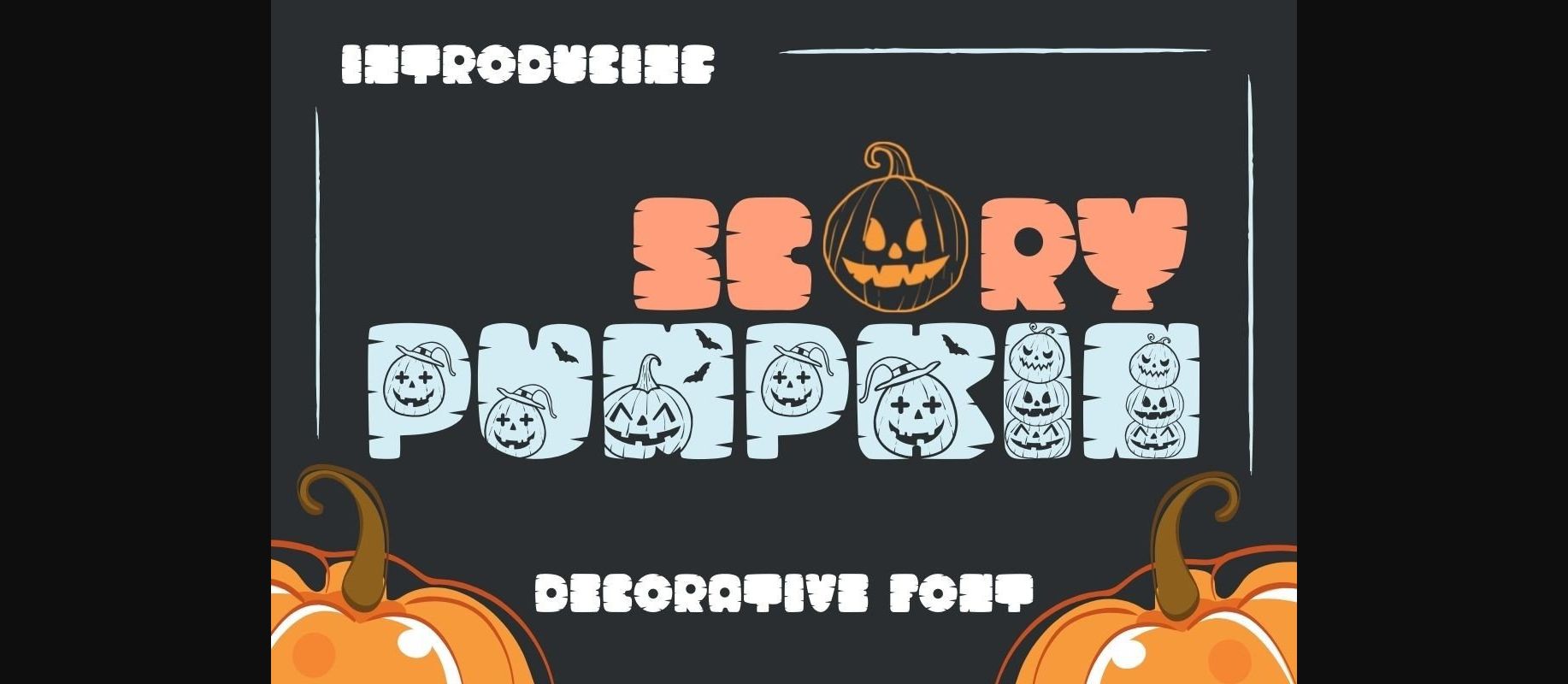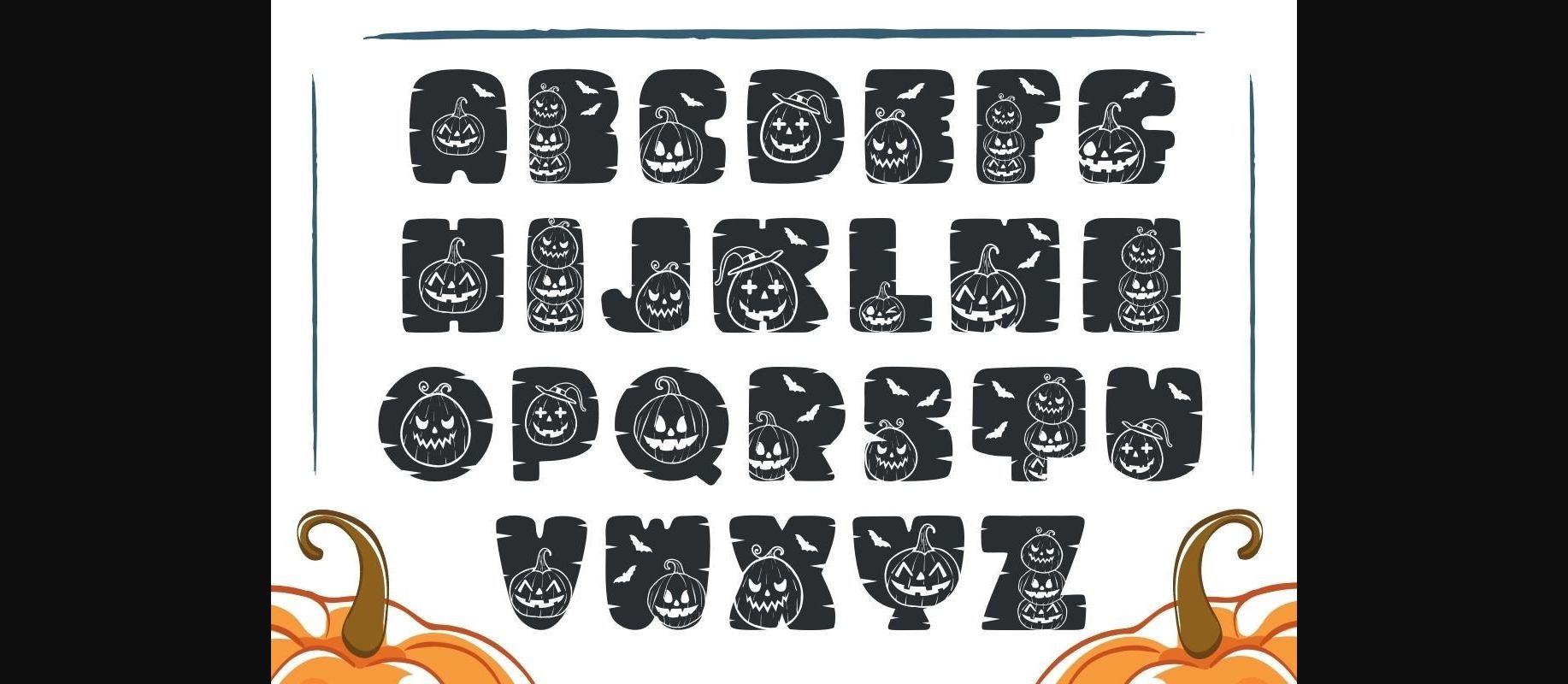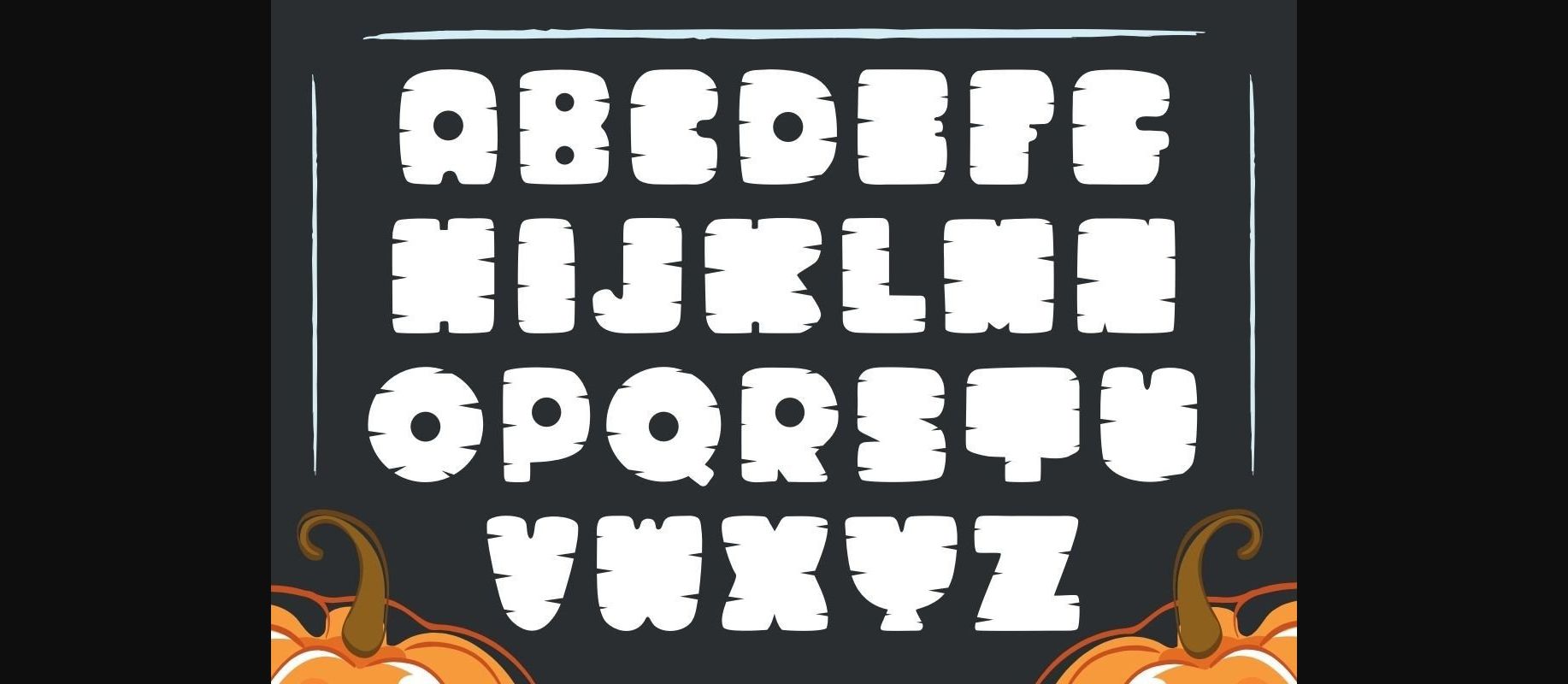
Scary Pumpkin Font
About Scary Pumpkin Font
Scary Pumpkin is a cute decorative font. This font uses a variety of pumpkin styles combined with a bold font which makes it perfect for all your Halloween or horror-themed projects.